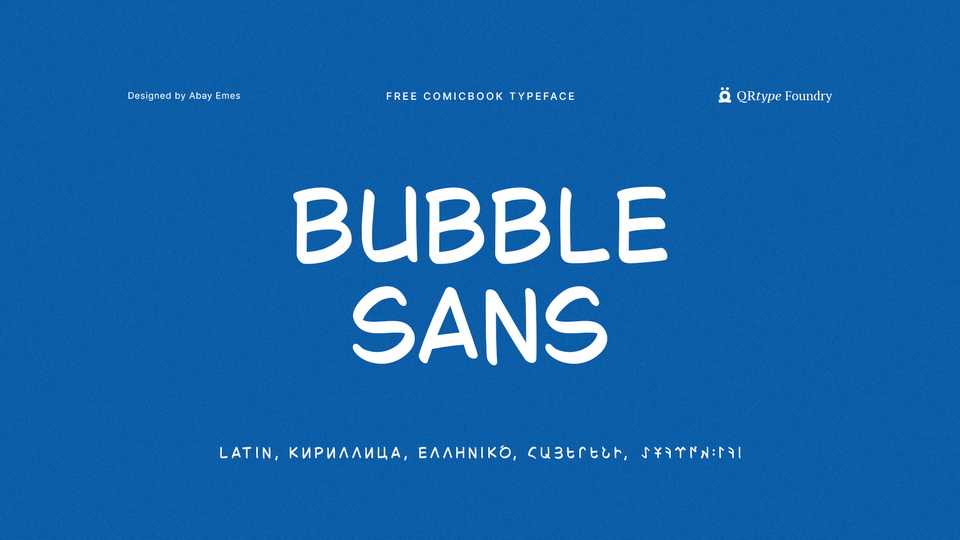
Download Bubble Sans font, a completely free comic book typeface that repeats the style of speech bubble fonts of classic comics of the 2000s.
Designer: Abay Emes